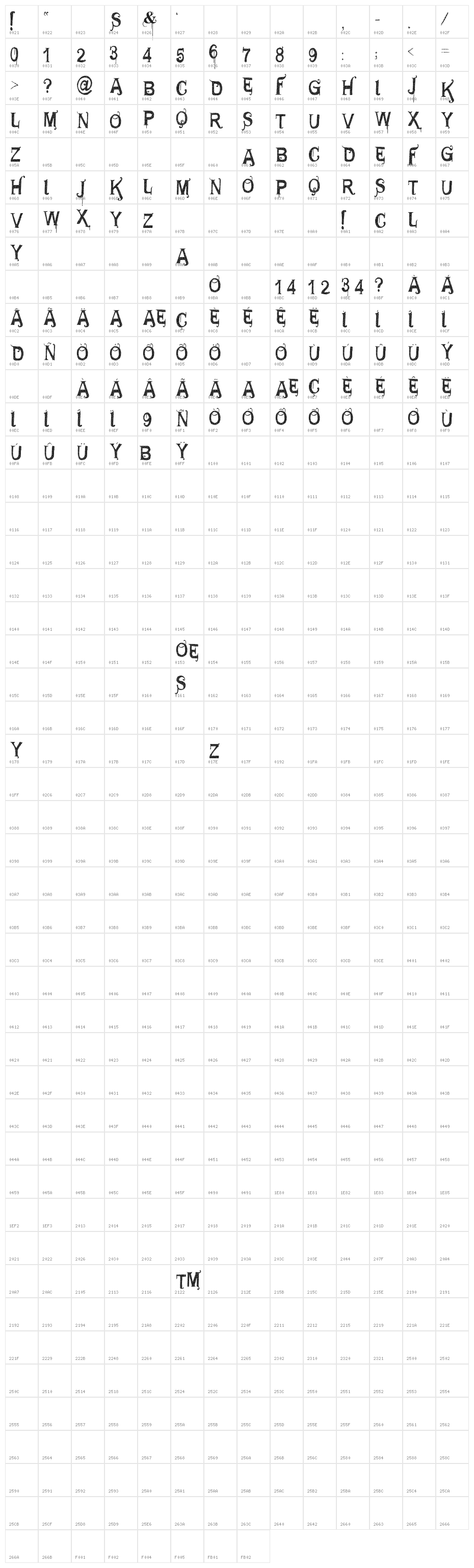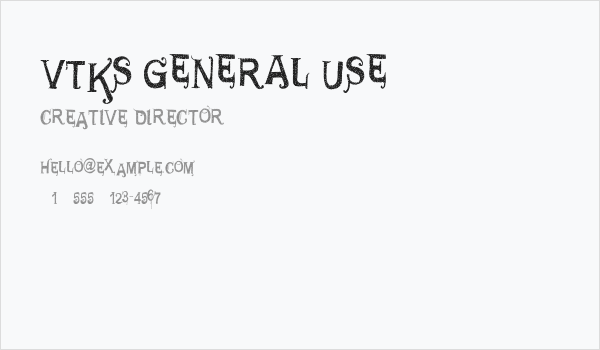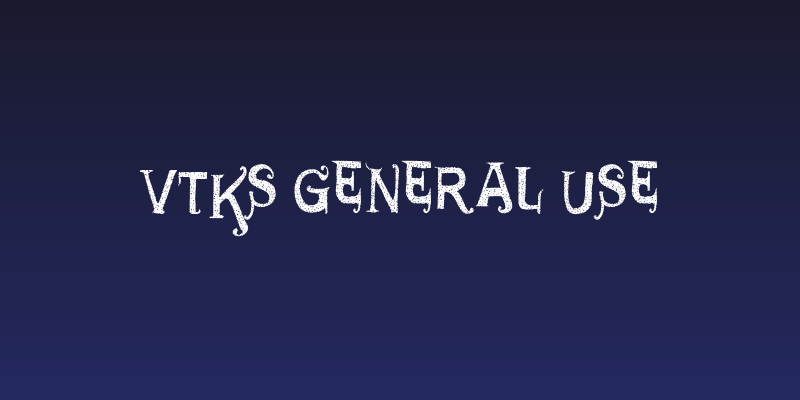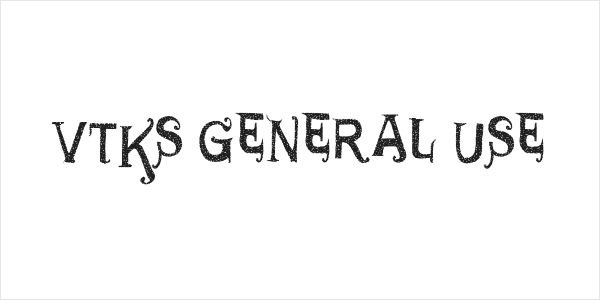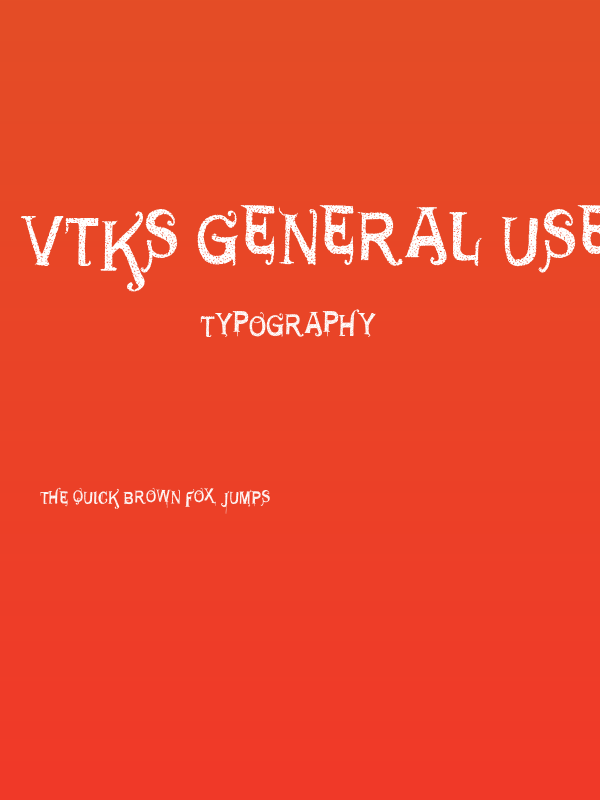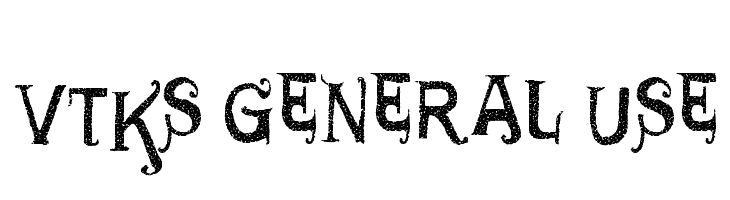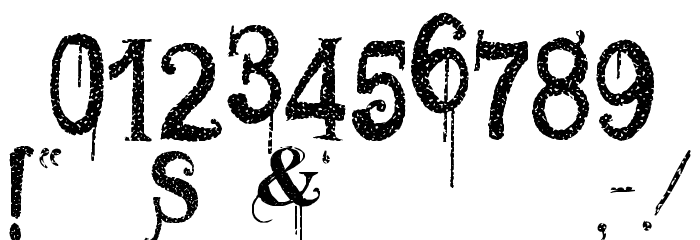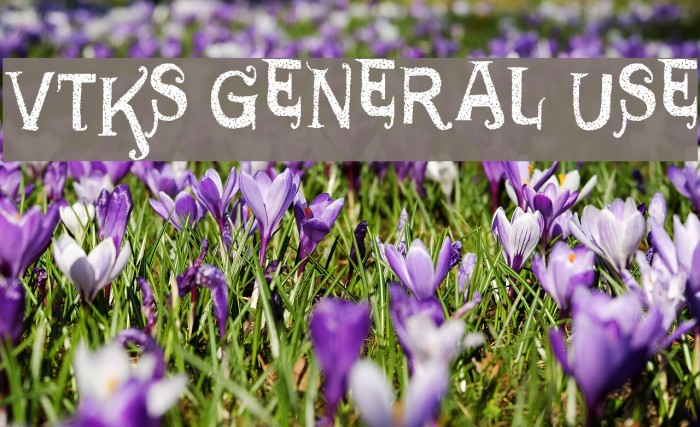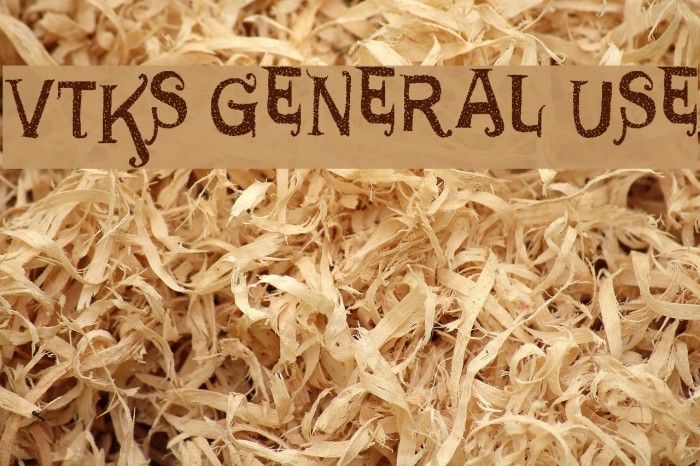
VTKS GENERAL USE Font
VTKS GENERAL USE Description
This font features a bold and decorative style with a distressed texture that gives it a vintage and grungy appearance. The characters are embellished with unique flourishes and serifs, adding an artistic flair. The uppercase letters are particularly ornate, with some characters having extended strokes and curls. The numbers and special characters maintain the same distressed aesthetic, ensuring consistency throughout the font. This design is eye-catching and ideal for projects that require a bold statement or a retro feel.
| Overall Style | Vintage, Decorative |
| Proposed Projects | Ideal for posters, album covers, vintage-themed designs, and branding that requires a bold, artistic touch. |